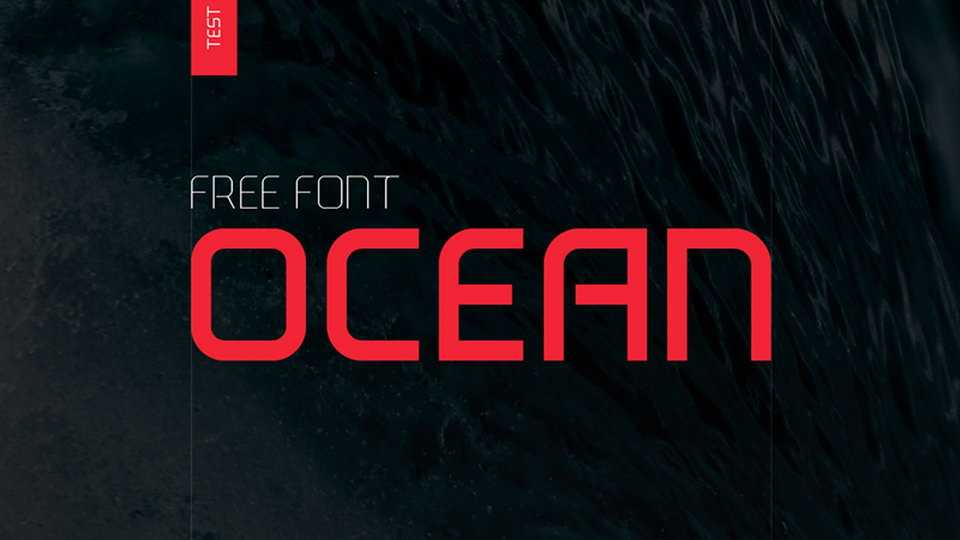
Download Ocean font family, a modern geometric typeface that offers you unique experiences for your designs. Ocean font reflects the essence of your designs thanks to its distinctive writing lines and original style.
Designer: Serdar Öztürk